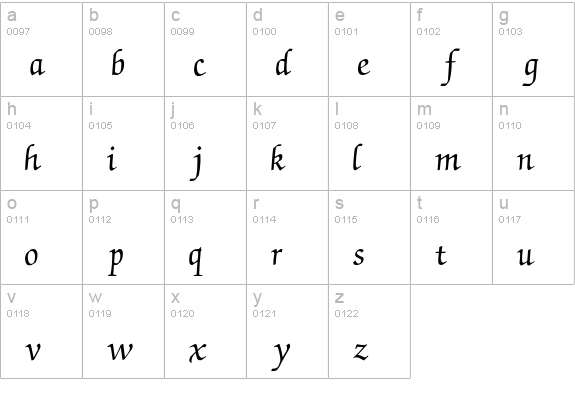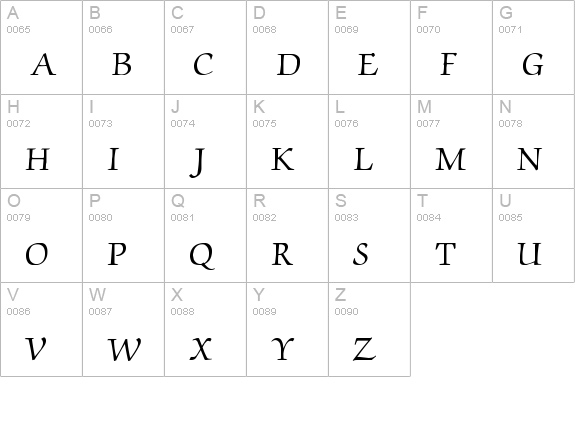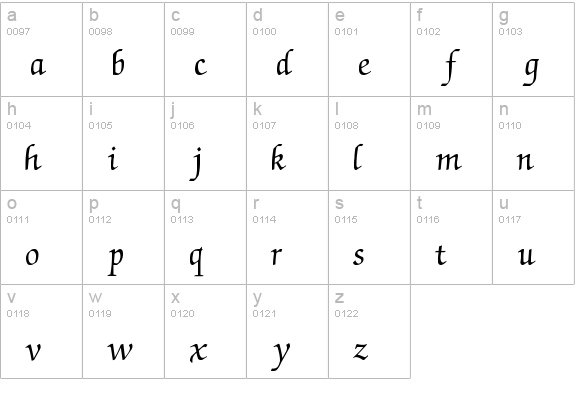
Chancery-Medium is a balanced, medium-weight variant in the Chancery typeface family \xE2\x80\x94 well suited to sub-headlines, navigation, and balanced editorial work.
Chancery-Medium font exudes elegance and sophistication with its graceful curves and timeless appeal. Its classic yet modern design makes it a versatile choice for various design projects, from invitations to branding and beyond. The medium weight strikes the perfect balance between boldness and subtlety, making it ideal for both headers and body text. What sets Chancery-Medium font apart is not only its aesthetic beauty but also its accessibility. This exquisite font is available for free download at FontsMarket.com, allowing designers and creatives to effortlessly incorporate its charm into their work without any cost. Whether you're working on a personal project or a client commission, Chancery-Medium font is a valuable addition to your font library. Unlock its potential and elevate your designs with this free and captivating typeface.